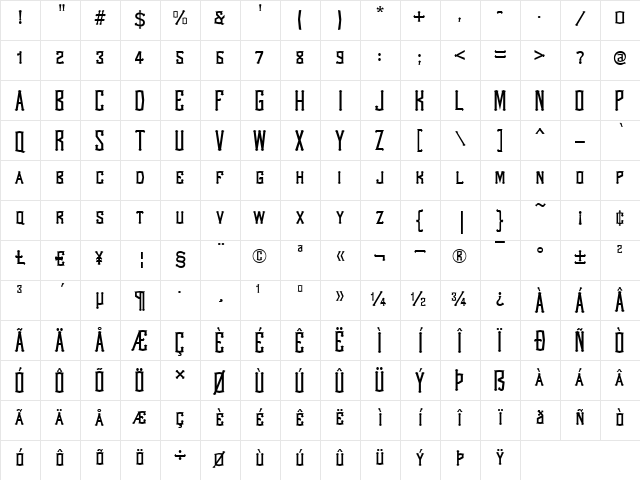
WestWind Centered Regular Free Font
WestWind Centered Regular
Design Context for WestWind Centered
WestWind Centered is a composed and adaptable typeface that performs quietly and consistently across a wide range of design contexts.
Pro Tip: Use WestWind Centered in both headline and body roles to test its range before committing to a single application.